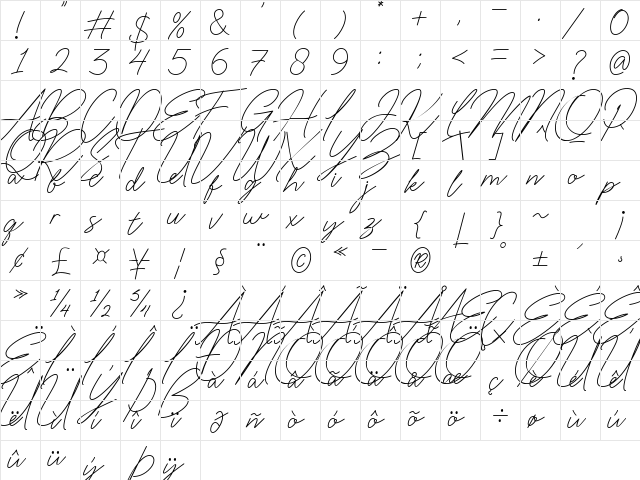
Ophelie Regular
| Designer | Rivo Dwi Adriansyah |
Design Context for Ophelie Typeface
Ophelie is a composed and adaptable typeface that performs quietly and consistently across a wide range of design contexts.